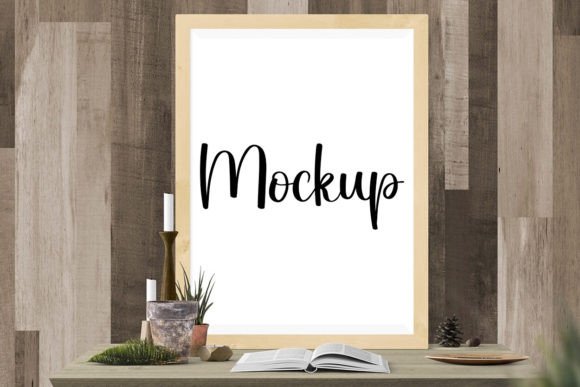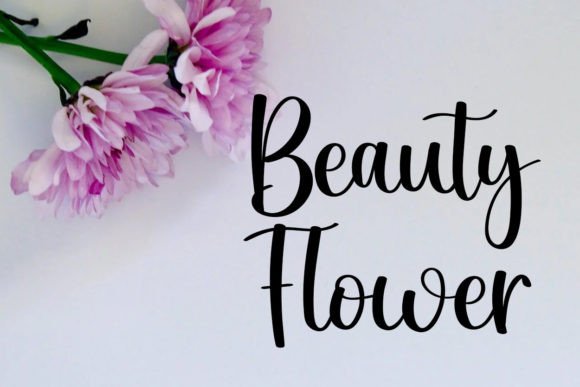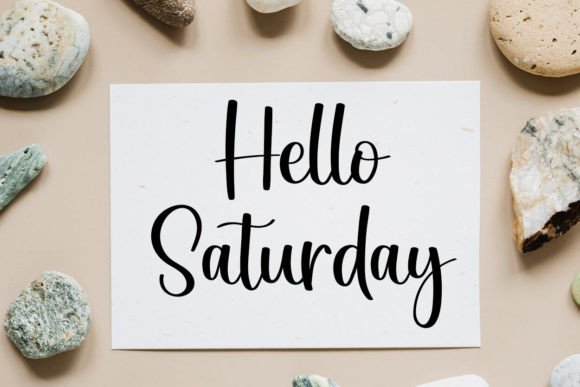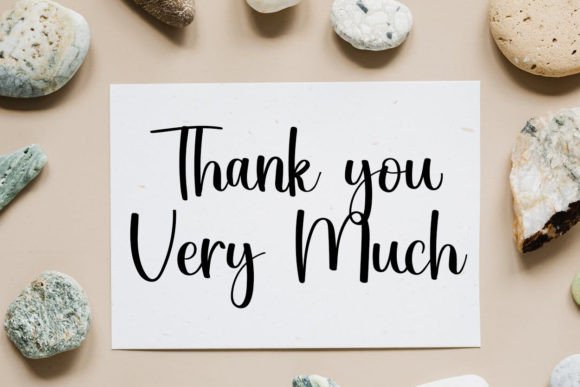
Unlock the Magic of the Holiday Season with Christmas Wishes Font
It’s that time of the year when creativity flows like hot cocoa, and the world is filled with the spirit of giving and love. As designers, we’re always on the lookout for the perfect font to capture the essence of our holiday designs. And that’s exactly where Christmas Wishes Font comes in – a sweet and friendly handwritten font that’s sure to make your creations shine.
With its natural and unique style, Christmas Wishes Font is the perfect addition to any design project. Whether you’re creating holiday cards, gift tags, or social media graphics, this font is sure to bring a touch of warmth and personality to your work. And the best part? The only limit is your imagination – so don’t be afraid to get creative and make it your own!
Christmas Wishes Font Key Features
- Font Family: Christmas Wishes Font is a unique, hand-drawn font designed specifically for holiday-themed projects.
- Size: The font family includes multiple weights and styles, ranging from 100 to 900, allowing for a wide range of design applications.
- Unique Characteristics: Features festive and whimsical designs, including ornaments, garlands, and snowflakes, making it perfect for Christmas-themed projects.
Designer Review: Christmas Wishes Font
Overall, I think “Christmas Wishes Font” has some great qualities, but it also falls short in a few areas. Let’s dive in and see what I mean.
The font’s unique blend of cursive and block letters makes it perfect for festive holiday projects. It’s also incredibly legible, even at smaller font sizes.
- The font’s bold and playful feel adds a lot of personality to designs.
- The characters are well-spaced and don’t feel cramped or cluttered.
While the font is great for holiday projects, it may not be the best choice for other types of designs. It’s also limited in its character set, which could be a problem for longer texts.
- The font may not be suitable for formal or professional designs.
- The limited character set means you may need to use a different font for longer texts.
I think “Christmas Wishes Font” is a fun and festive font that’s perfect for holiday projects. While it has some limitations, it’s a great choice for anyone looking to add some holiday cheer to their designs.
The “Christmas Wishes Font” is ideal for creating festive holiday designs, such as:
- Christmas card invitations
- Gift tags and labels
- Party decorations and banners
- Seasonal social media posts
For the most effective use of the font, experiment with different font sizes, colors, and styles to create a cohesive and visually appealing design.
What is the character set of the Christmas Wishes Font?
The Christmas Wishes Font includes a comprehensive character set, including uppercase and lowercase letters, numbers, punctuation, and special characters. It also supports a range of languages, including English, Spanish, French, German, Italian, and many others. Please refer to the font’s documentation or website for a complete list of supported languages and characters.